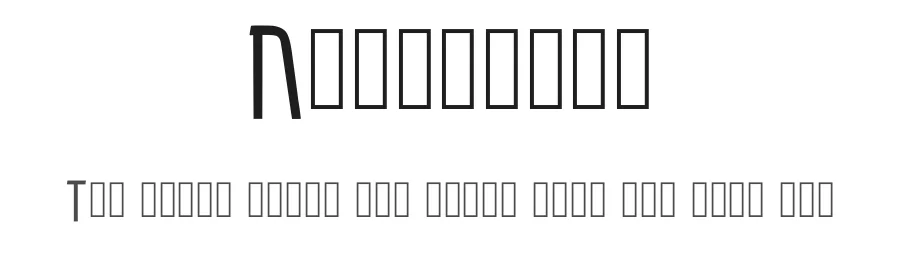
About Octin Stencil Free Font
Octin Stencil translates industrial utility into a clean, adaptable stencil design with seven weights that range from functional light cuts to powerful bolds. Its precise geometry and practical gaps evoke factory lettering and military graphics while staying versatile for branding, signage, and editorial use. Supporting Latin-based European languages and part of the larger Octin family, it maintains visual cohesion across projects that demand clarity and durability. Octin Stencil delivers rugged professionalism with a modern, engineered edge.
| Designer | Raymond Larabie |
Octin Stencil Free Font is a decorative font that shines as a display or heading face. Pair it with a clean sans-serif or serif font for body text β the contrast creates a clear hierarchy while the two styles stay balanced and easy to read.